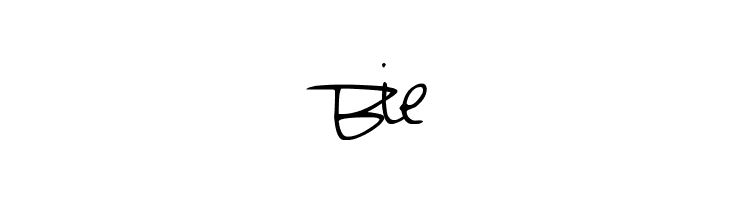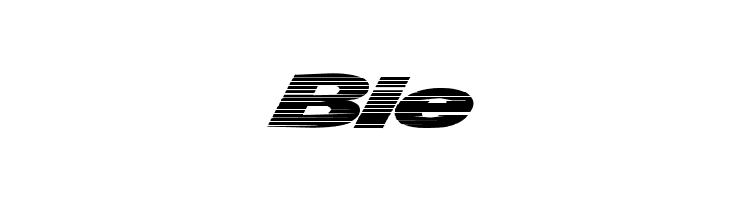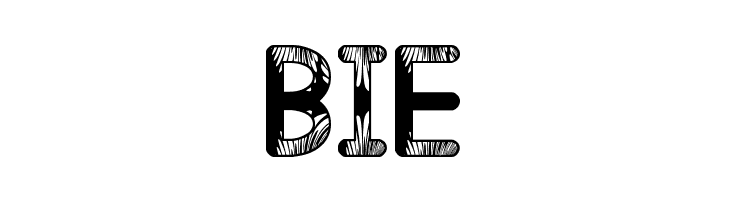
A bold, futuristic font with angular, geometric characters.
An elegant script font with flowing cursive style and intricate swashes.
A playful, hand-drawn font with irregular strokes and a whimsical style.
A bold, angular font with a vintage yet modern style, perfect for striking headlines.
A bold, italicized font with sharp angles and a dynamic presence.
A bold, italic font with sharp angles and strong presence.
A bold, geometric font with sharp, angular edges and consistent stroke width.
A dynamic serif font with elegant slant and moderate contrast, perfect for versatile applications.
A playful and artistic font made from lip print designs, perfect for creative projects.
A playful, rounded font with a whimsical and friendly design.
A decorative series of lip prints representing characters and symbols.
A bold, playful font with a hand-drawn, casual style.
A bold, rounded font with a playful yet assertive style.
A bold, italic serif font with dynamic and elegant characteristics.
A whimsical font with characters encased in cat silhouettes, perfect for playful designs.
Whimsical cat silhouette dingbat font.
A classic Blackletter style font with ornate and intricate characters.
A bold, modern sans-serif font with a slightly condensed style.
A clean, modern sans-serif font with uniform stroke width and rounded characters.
A bold, angular font with a futuristic, alien-like design.
Playful and bold handwritten font.
A bold, playful font with rounded edges and a hand-drawn style.
A whimsical, hand-drawn font with tall, narrow characters and a playful style.
A bold, 3D italic font with star-filled characters and a playful design.
A bold, 3D decorative font filled with star patterns and thick outlines.
A bold, star-patterned decorative font with a vintage Americana vibe.
A bold, italicized font with star-filled characters and outlined design.
A bold, italicized font filled with a decorative star pattern.